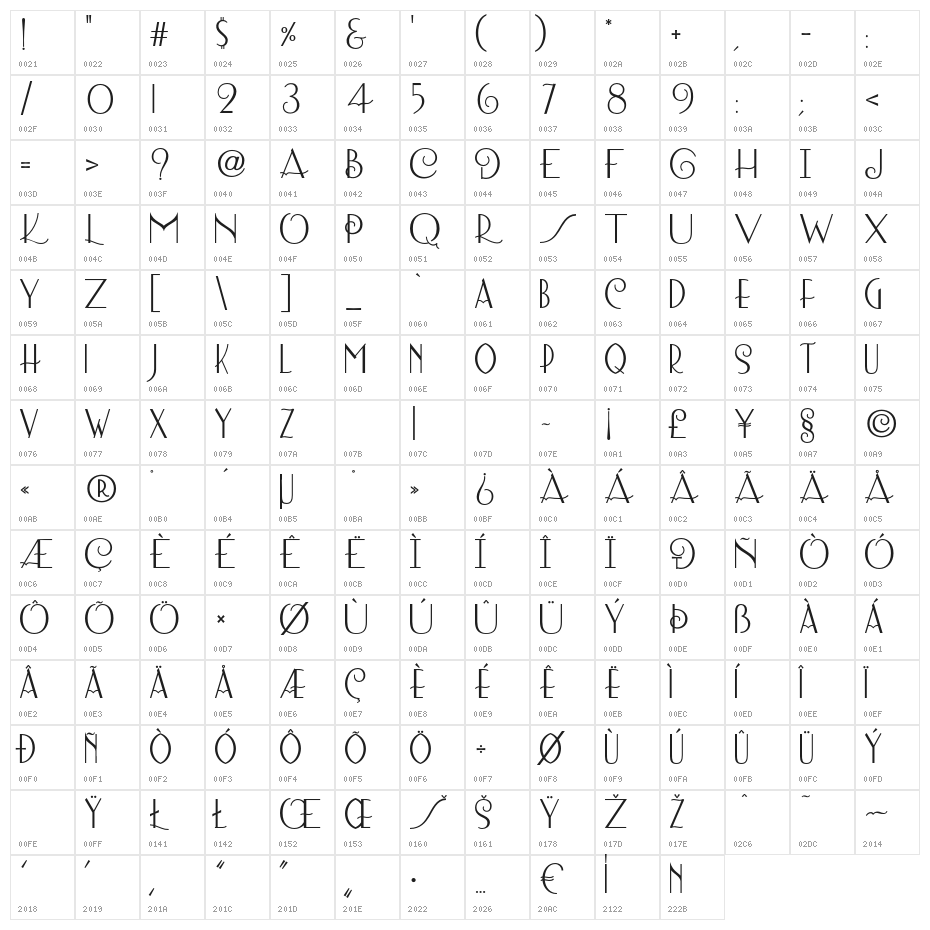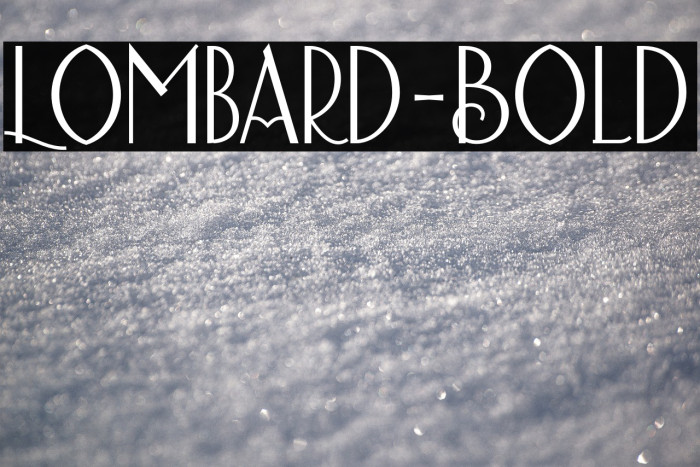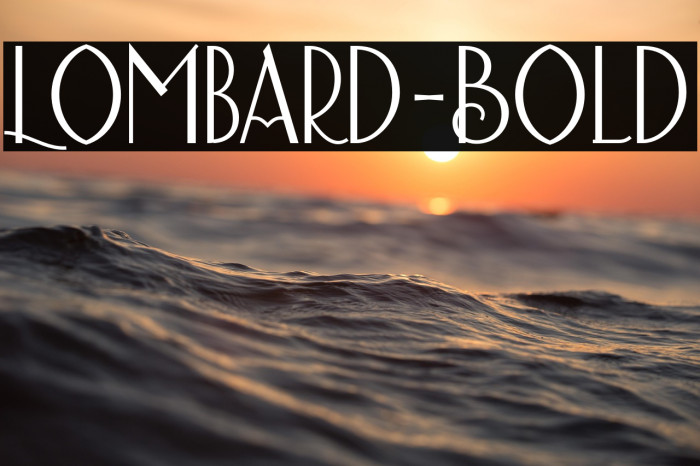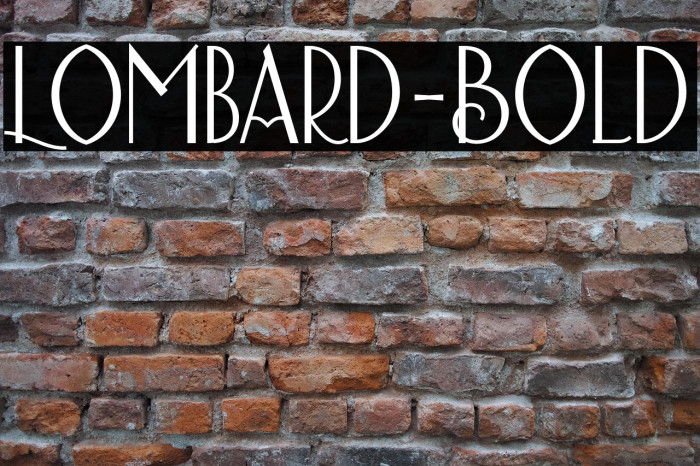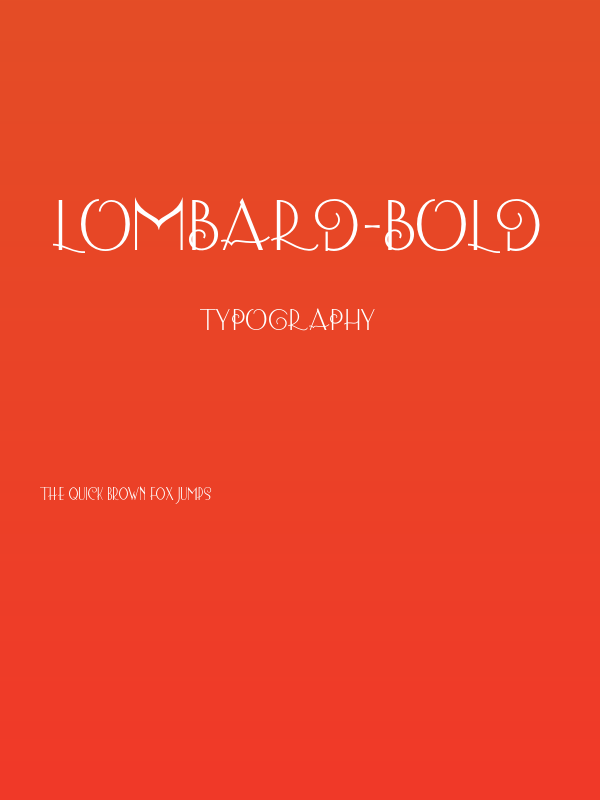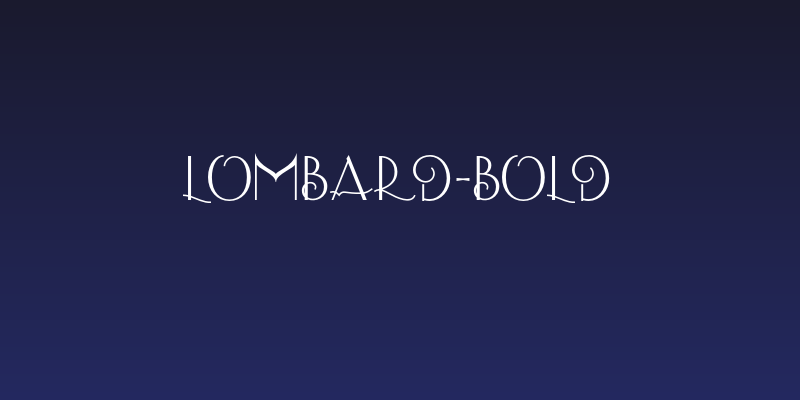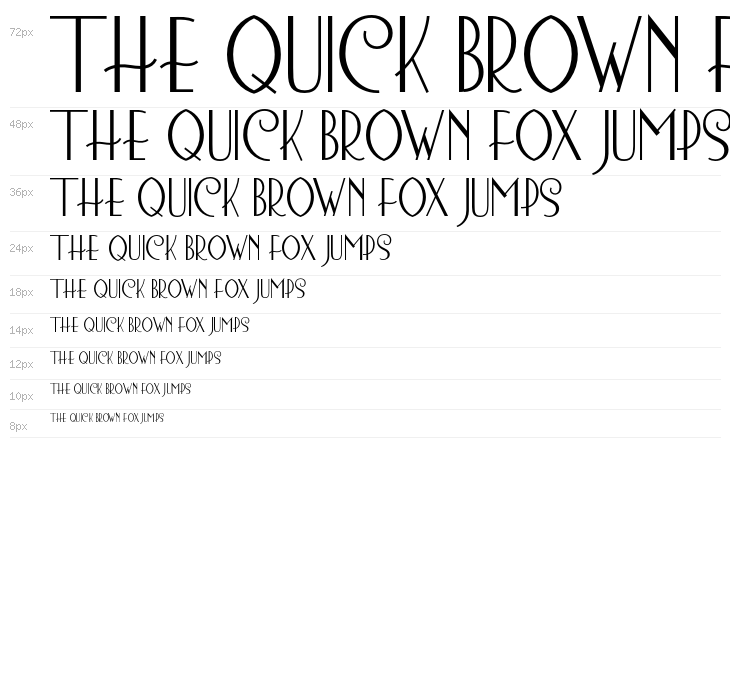
Lombard-Bold Font
Lombard-Bold Description
This font features a unique blend of elegance and boldness, characterized by its decorative and artistic flair. The uppercase letters exhibit a distinct style with intricate curves and flourishes, particularly noticeable in letters like 'A', 'B', and 'D'. The lowercase letters maintain a consistent design, offering a harmonious flow that complements the uppercase set. Numbers are crafted with a similar artistic touch, ensuring uniformity across the character set. Special characters are thoughtfully designed, adding to the font's overall aesthetic appeal. This font's bold strokes and artistic elements make it stand out, ideal for projects that require a touch of sophistication and creativity.